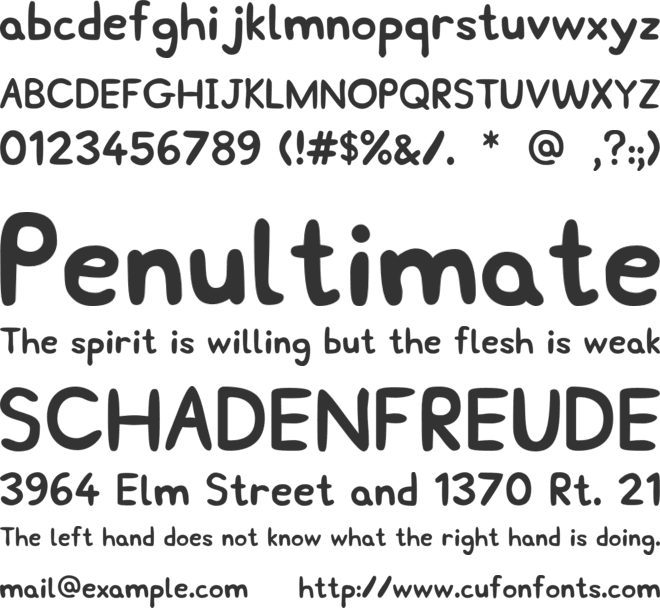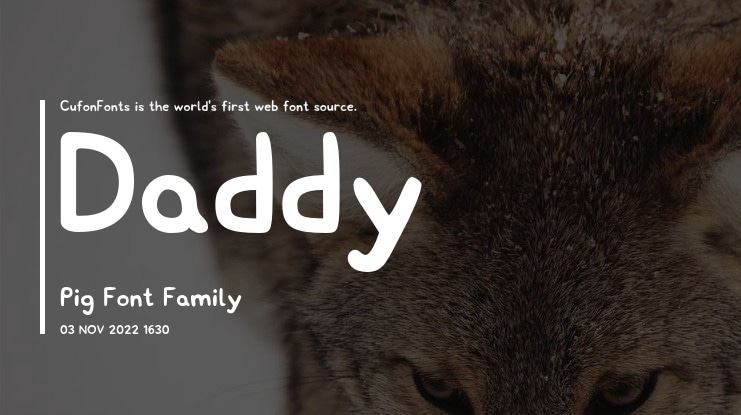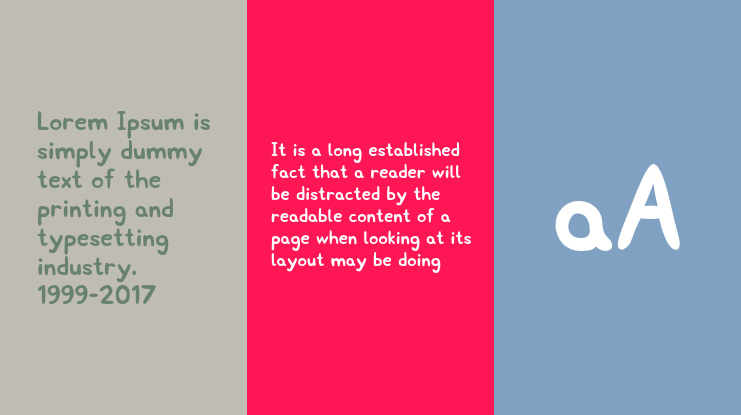
This font is based on the font used extensively in the (great) children's television programme "Peppa Pig".It's free to use, but if you like it, please make a small donation to a charity of your choice (if you can't think of one, how about Red Cross or Medecins Sans Frontieres?). If you want to use it commercially (though goodness knows why you would), please make a medium-sized donation to charity.